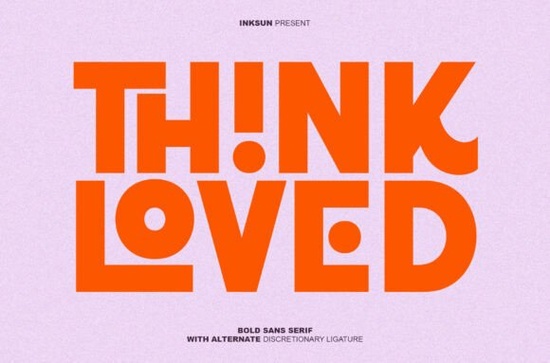
If you're looking for a bold sans serif font that makes an immediate visual impact without sacrificing modern minimalism, Think Loved is worth a closer look. Designed with geometric precision and a touch of playful experimentation, it’s especially well-suited for creators who need headlines or logos to stand out in crowded digital spaces whether you're designing streetwear graphics, social media ads, or brand identities for small businesses.
What sets Think Loved apart isn’t just its ultra-heavy weight it’s the thoughtful details. Circular cutouts break up solid letterforms, adding rhythm and contrast, while discretionary ligatures create interlocking characters that feel custom-made. These aren’t gimmicks; they’re intentional design choices that help your text double as graphic art.
Who should use Think Loved?
This font shines in contexts where clarity meets character:
- Print-on-demand sellers creating t-shirt or hoodie designs that need instant readability and attitude.
- Small business owners building logos or packaging for lifestyle, tech, or fashion brands.
- Digital marketers crafting high-contrast banners or Instagram stories that stop scrollers mid-feed.
- Hobbyist designers experimenting with typography in posters, stickers, or zines.
If your project leans toward clean lines but still wants personality, Think Loved bridges that gap better than many generic bold fonts.
How does it compare to other bold sans serifs?
Not all heavy sans serifs are created equal. Some feel industrial (like certain uses of Helvetica Black), while others lean retro or utilitarian. Think Loved occupies a more expressive middle ground structured yet dynamic.
For example, if you’ve used the Hoodie Font, you’ll recognize its relaxed, wearable vibe great for casual apparel. Think Loved trades that softness for sharper geometry and bolder presence, making it better suited for premium or edgy branding.
Similarly, the Polaroid Font offers nostalgic charm with subtle imperfections, ideal for vintage-inspired projects. Think Loved, by contrast, feels firmly contemporary built for screens, storefronts, and fast-moving visual environments.
And if you want to explore more options in this style, the Think Loved collection page includes pairing suggestions and real-world mockups to help you visualize it in action.
Practical tips for using Think Loved effectively
Because of its strong personality, Think Loved works best when given room to breathe:
- Use it sparingly. It’s a headline font first avoid body text or long paragraphs.
- Pair it with neutral companions. A simple, lightweight sans serif (like Inter or Montserrat Light) balances its intensity.
- Experiment with ligatures. OpenType features let you toggle alternate characters try them in logo concepts or single-word statements.
- Test at multiple sizes. The circular cutouts remain legible even small, but shine in large formats like billboards or merch prints.
Also, keep contrast in mind: white Think Loved text on a dark background often delivers more punch than the reverse, thanks to how the negative space interacts with those cutouts.
Is it beginner-friendly?
Yes with caveats. If you’re new to typography, start by using Think Loved in uppercase for short phrases (“NEW DROP,” “LIMITED EDITION”). Its consistent stroke width and open forms make it forgiving even in tight layouts.
More advanced users will appreciate the OpenType support for stylistic alternates. Tools like Adobe Illustrator, Affinity Designer, or even Canva (with uploaded fonts) let you access these features without coding.
Just remember: this font isn’t trying to disappear. It’s meant to be seen. So use it when you want your message to land with confidence not whisper.
Before you download, ask yourself: Does my project need a voice that’s loud, clear, and visually distinctive? If yes, Think Loved could be the right fit.